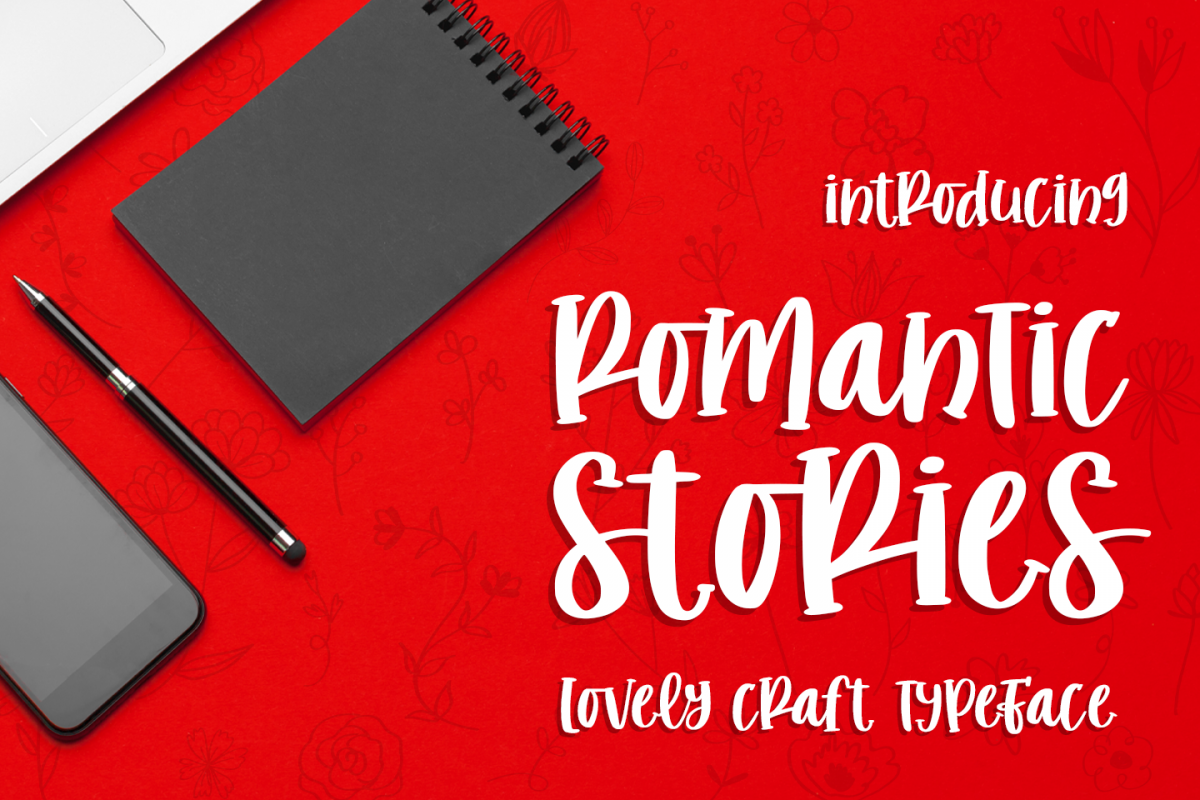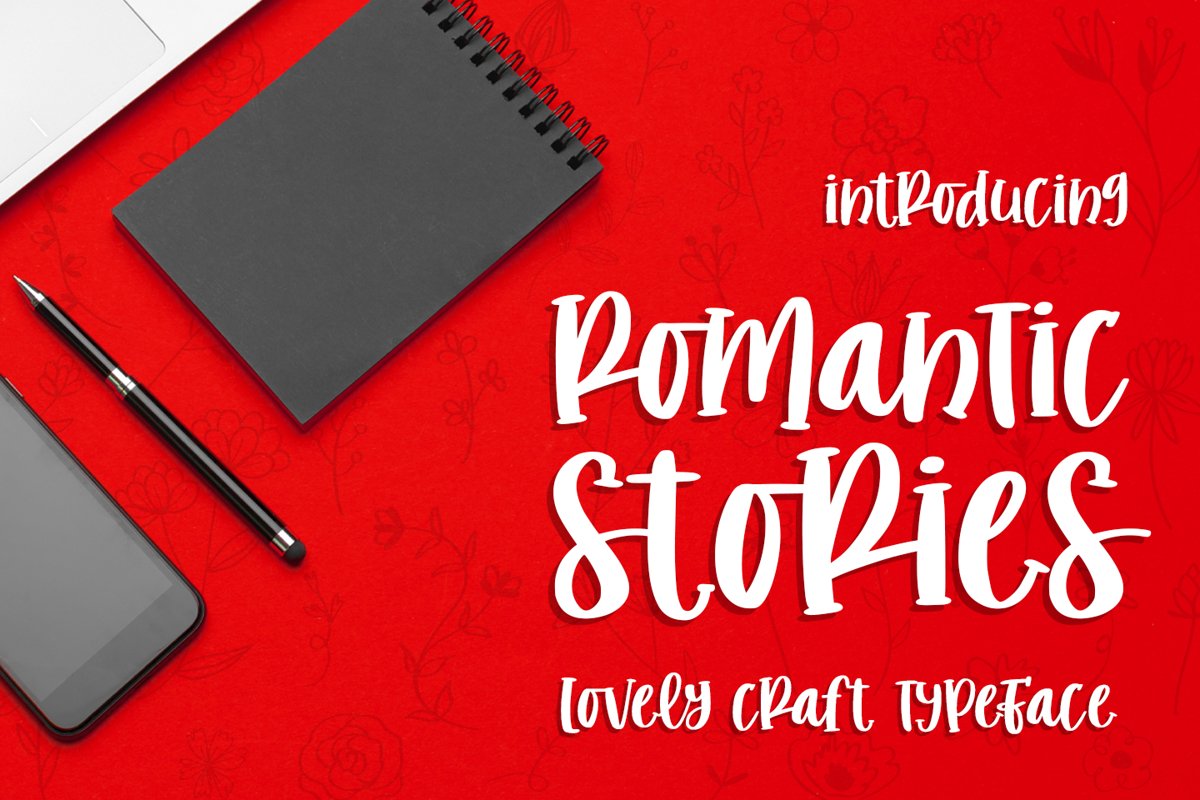
romantic stories - handcraft font -
romantic stories
introducing
ROMANTIC STORIES
- lovely handcraft typeface -
this font is really beauty
It is great for
- CUTTING
- PRINTING
- SOCIAL MEDIA Quotes
- or anything that needs craft feel
This Font came with numbers & punctuations, multilingual support, ligature, and PUA encode
The combination of Uppercase & Lowercase is perfect.